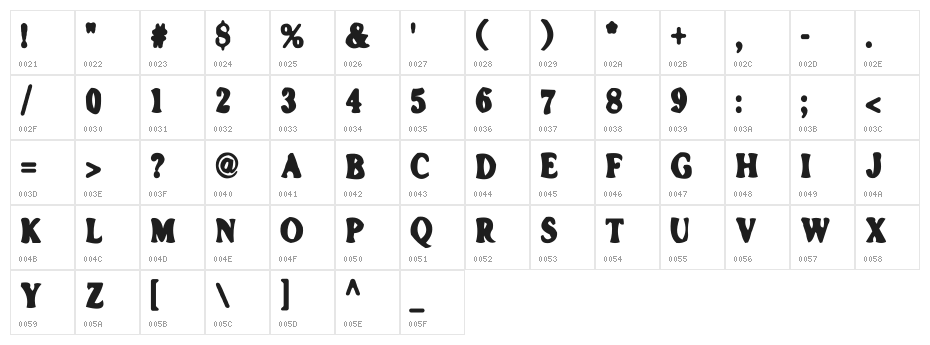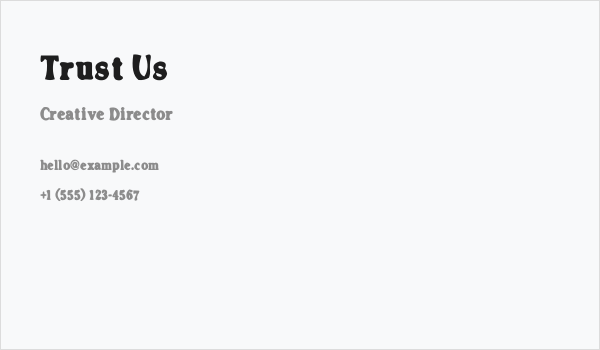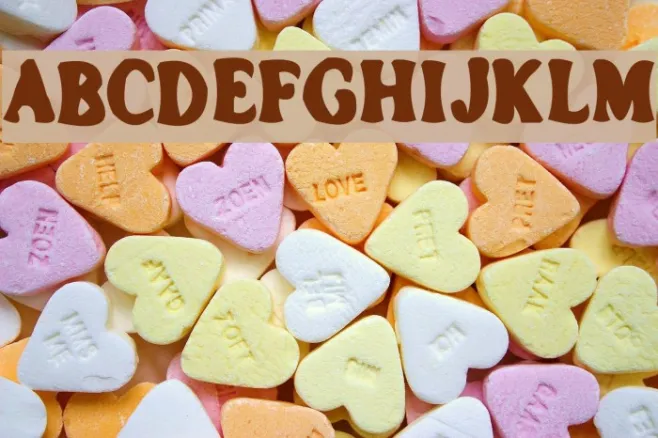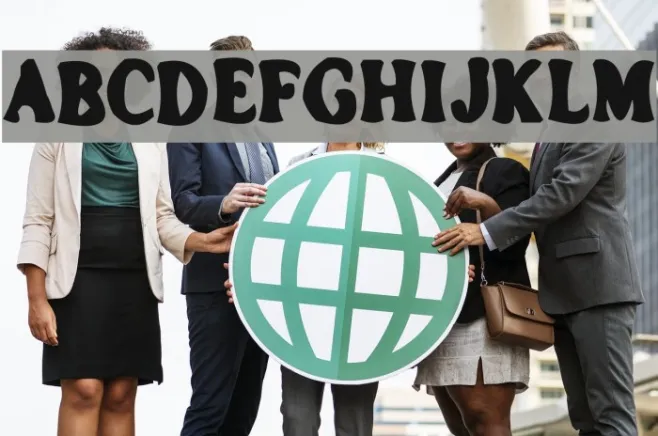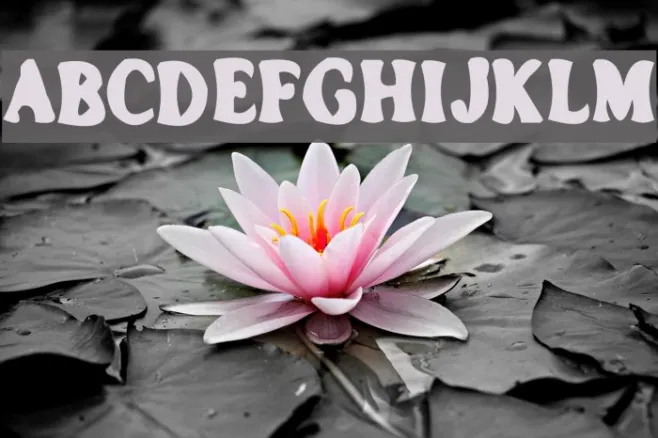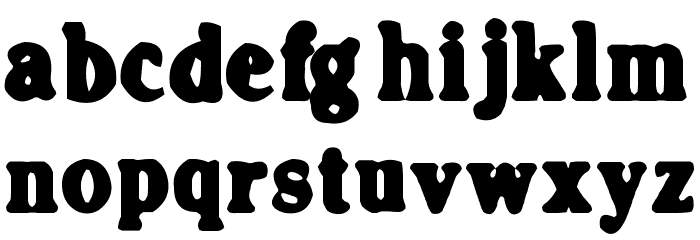
Trust Us Font
Trust Us Description
This font features a bold and playful design with a distinctly whimsical character. The letters are thick and rounded, giving them a friendly and approachable appearance. The strokes are consistent in width, contributing to a uniform look across all characters. The uppercase and lowercase letters maintain a cohesive style, with slight variations to add interest. Numbers and special characters are crafted with the same attention to detail, ensuring readability and aesthetic appeal. This font's unique style makes it stand out, ideal for projects that require a touch of fun and creativity.
| Proposed Projects | Ideal for children's books, playful branding, posters, and creative invitations. |